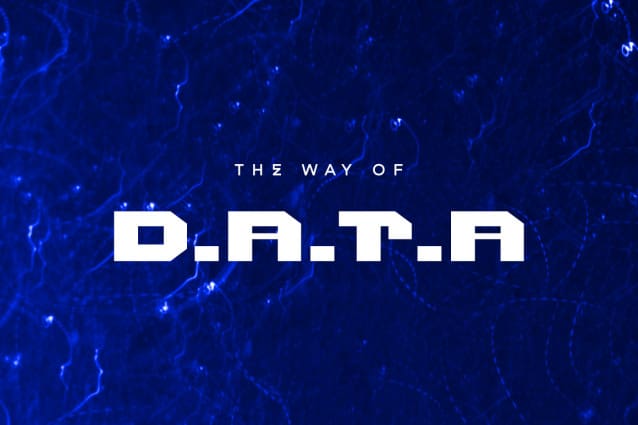
FF Rain Typeface
FF Rain Typeface, it would be a perfect choice to design posters, affiches, logos, t-shirt and magazine prints, eye-pleasing typographic designs and more.